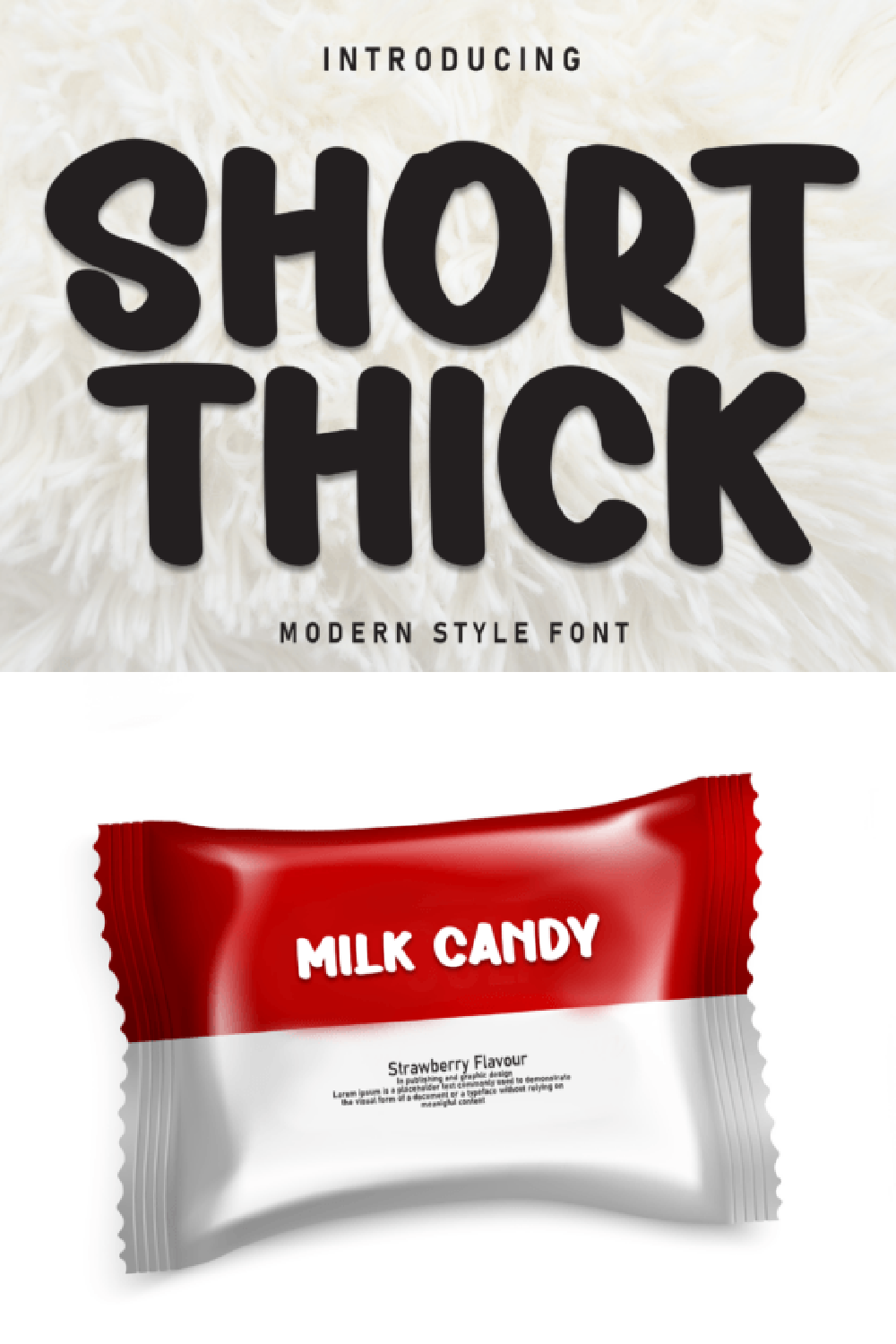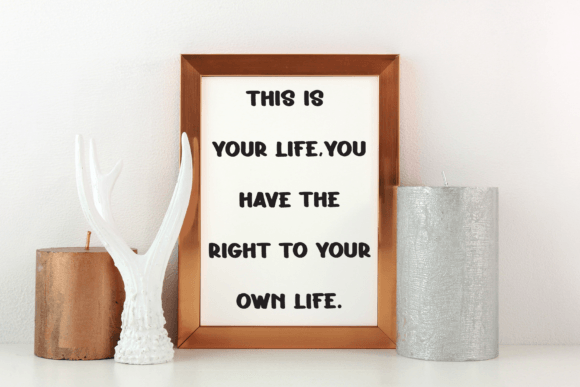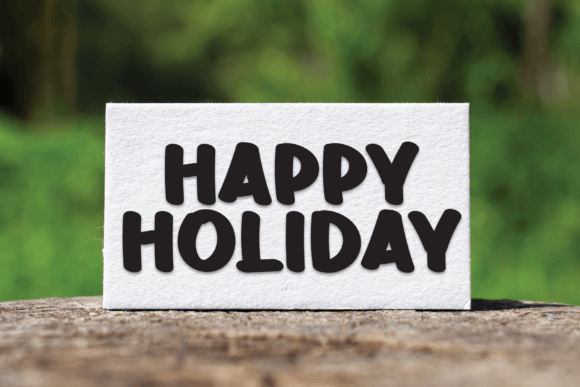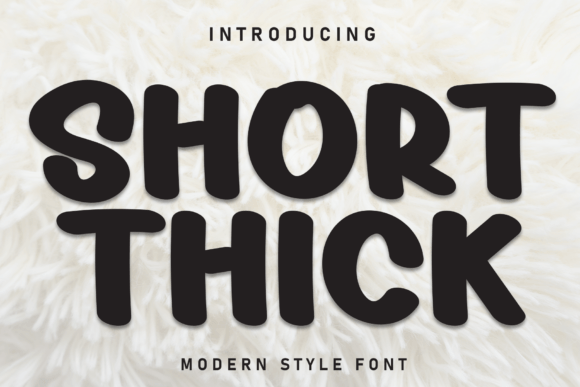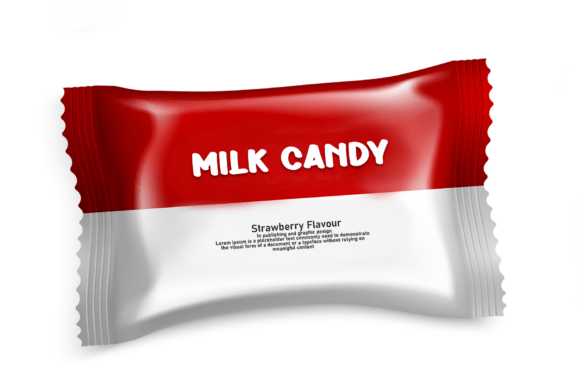
Short Thick Font
About the Short Thick Font
Get ready to be inspired by Short Thick Font, a fresh and dynamic typeface for modern creators. Short Thick
is a strong and bold display font with wide letters. Its solid design makes it perfect for headlines and eye-catching text, giving any project a powerful and confident look!